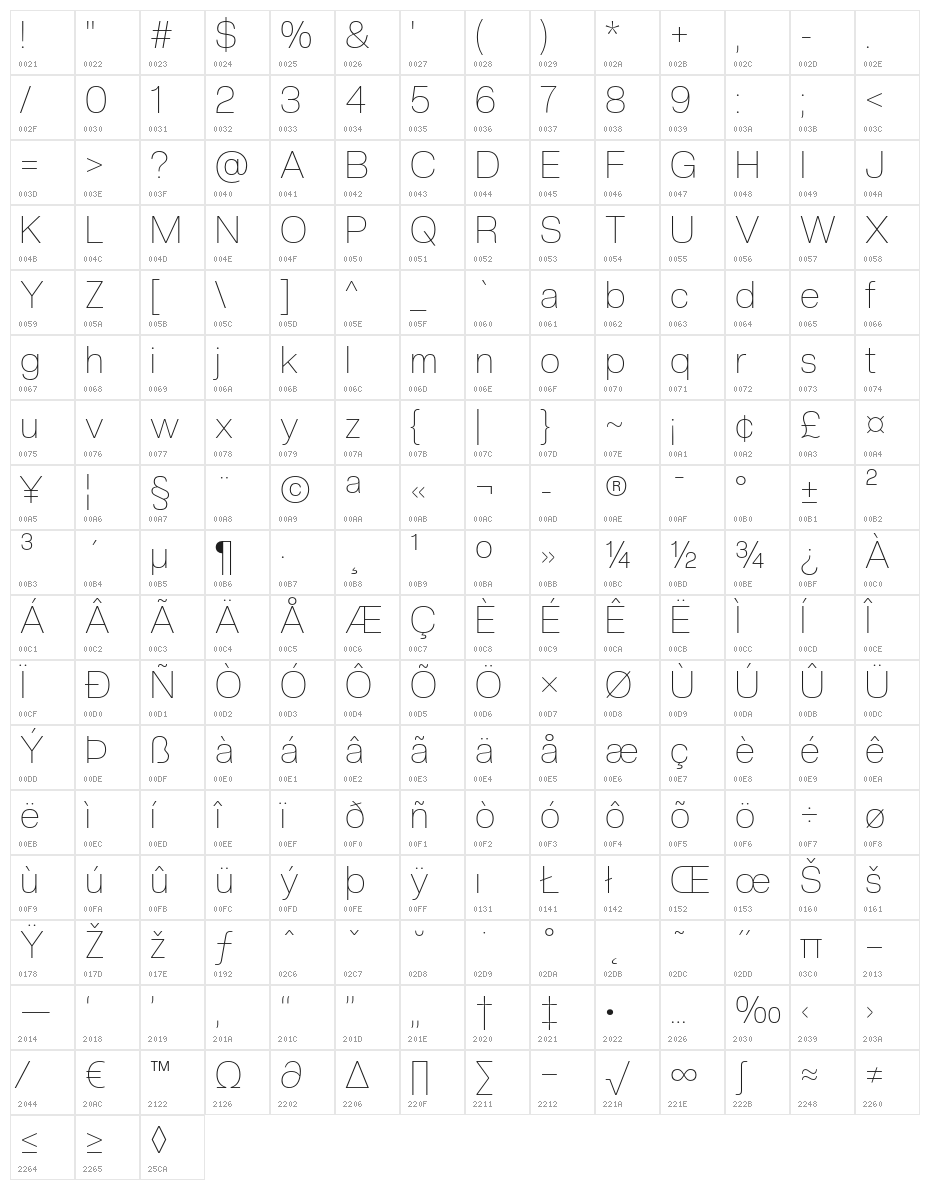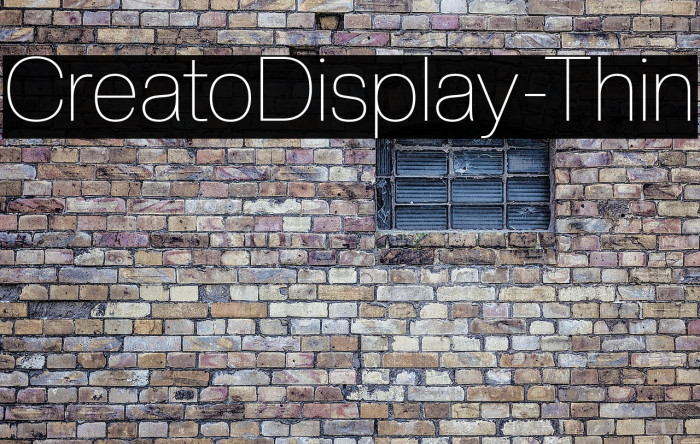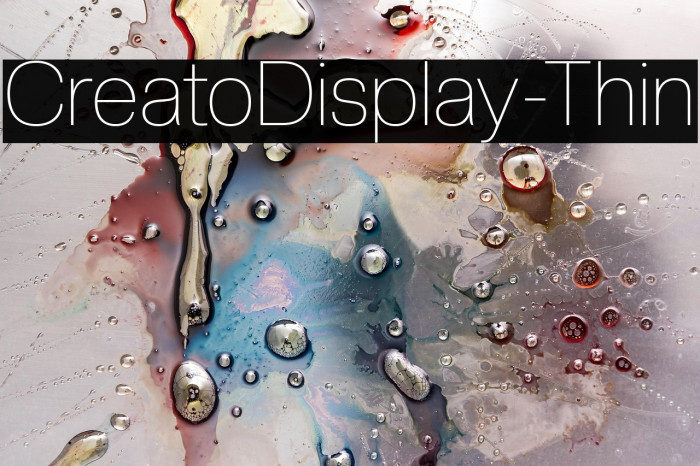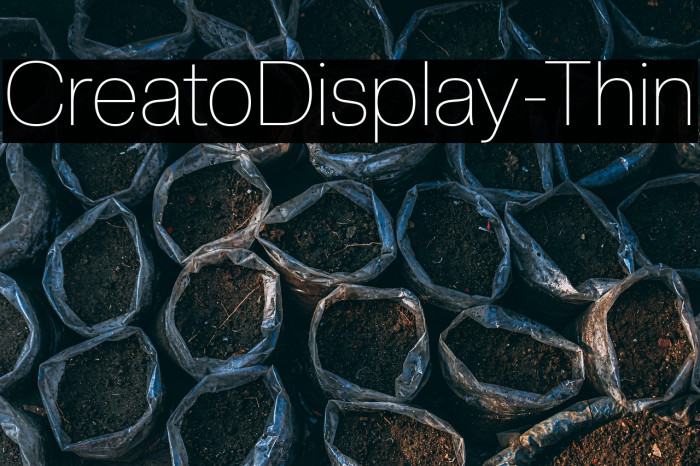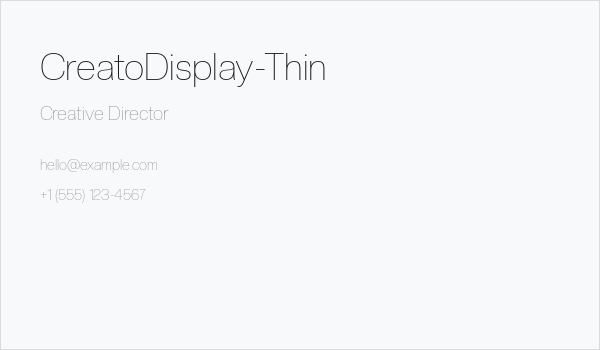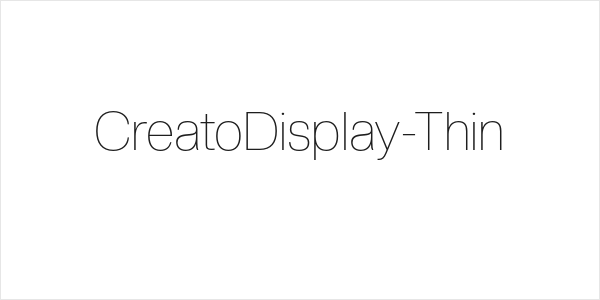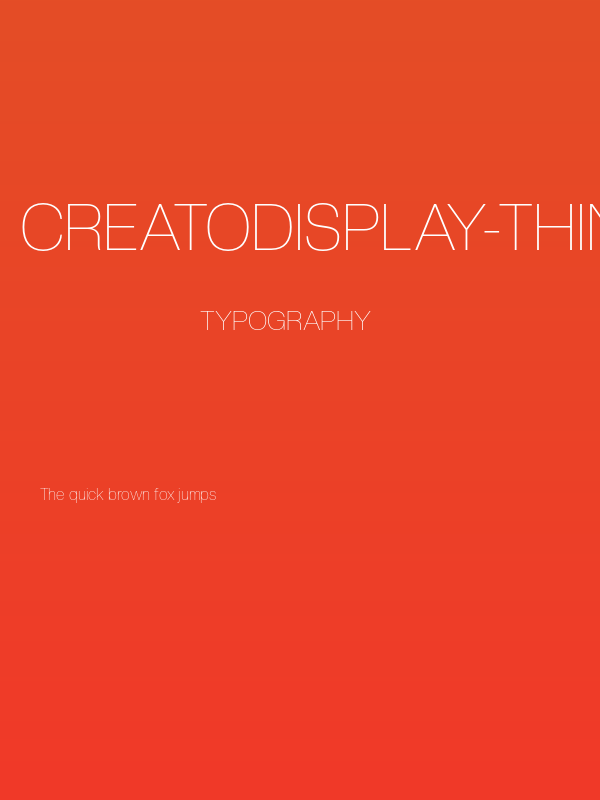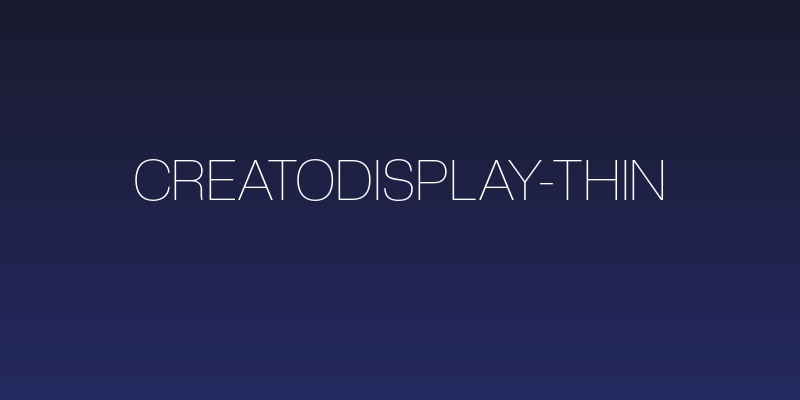
CreatoDisplay-Thin Font
CreatoDisplay-Thin Description
This font features a clean and modern sans-serif style with thin, uniform strokes that convey a sense of elegance and simplicity. The characters are well-proportioned, with a consistent height and width that enhances readability. The uppercase letters are slightly taller than the lowercase, providing a balanced visual hierarchy. The numerals are clear and distinct, making them suitable for both text and numerical data. Special characters are designed with the same minimalist approach, ensuring they integrate seamlessly with the rest of the font. Overall, this font exudes a contemporary and professional feel, making it ideal for a variety of design projects.